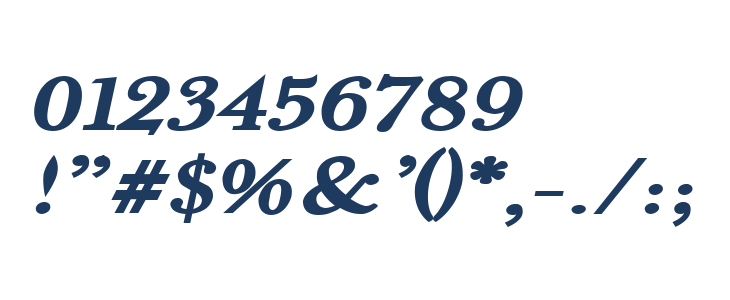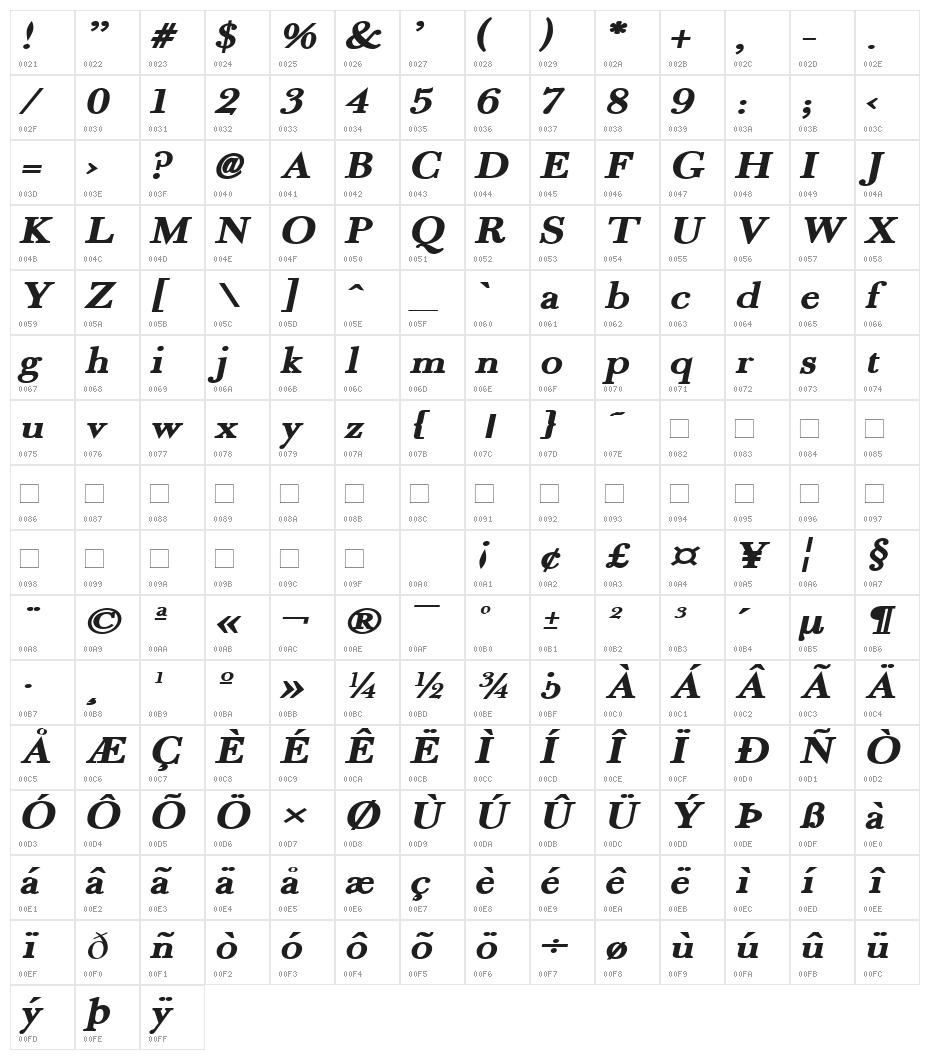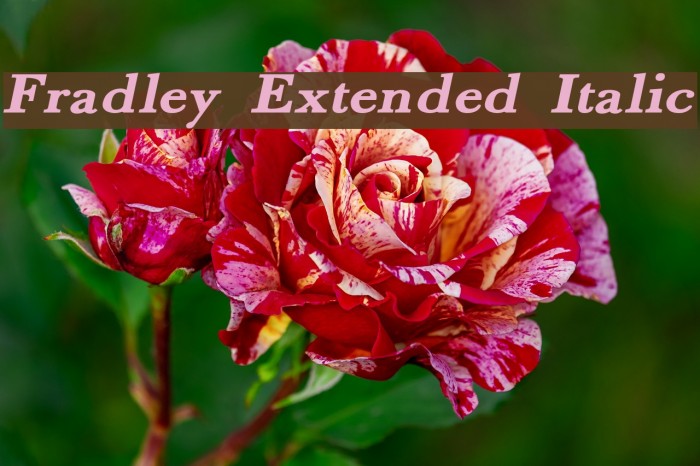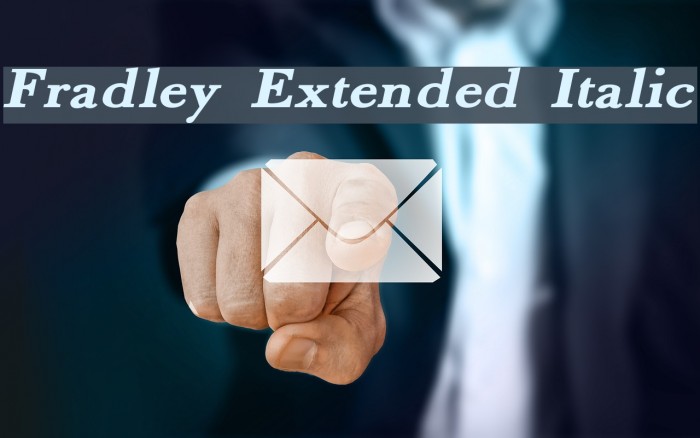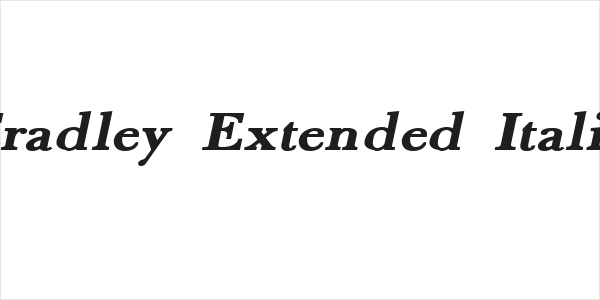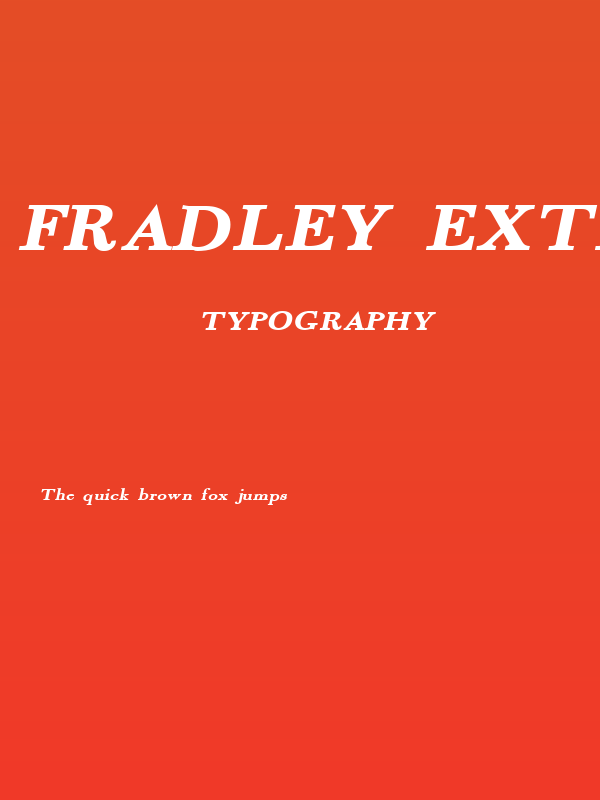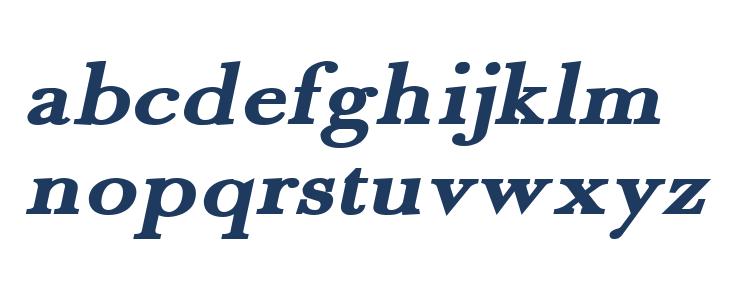
Fradley Extended Italic Font
Fradley Extended Italic Description
This font exhibits a classic serif style with an elegant italic slant, providing a sophisticated and refined appearance. The characters are well-defined with moderate stroke contrast, giving it a balanced and readable look. The extended width adds a touch of grandeur, making it suitable for formal and traditional applications. The uppercase letters are bold and commanding, while the lowercase letters maintain a graceful flow. Numerals are clear and distinct, ensuring legibility. Special characters are designed to complement the overall aesthetic, enhancing its versatility.
| Proposed Projects | Ideal for formal invitations, elegant branding, book covers, and editorial design. |